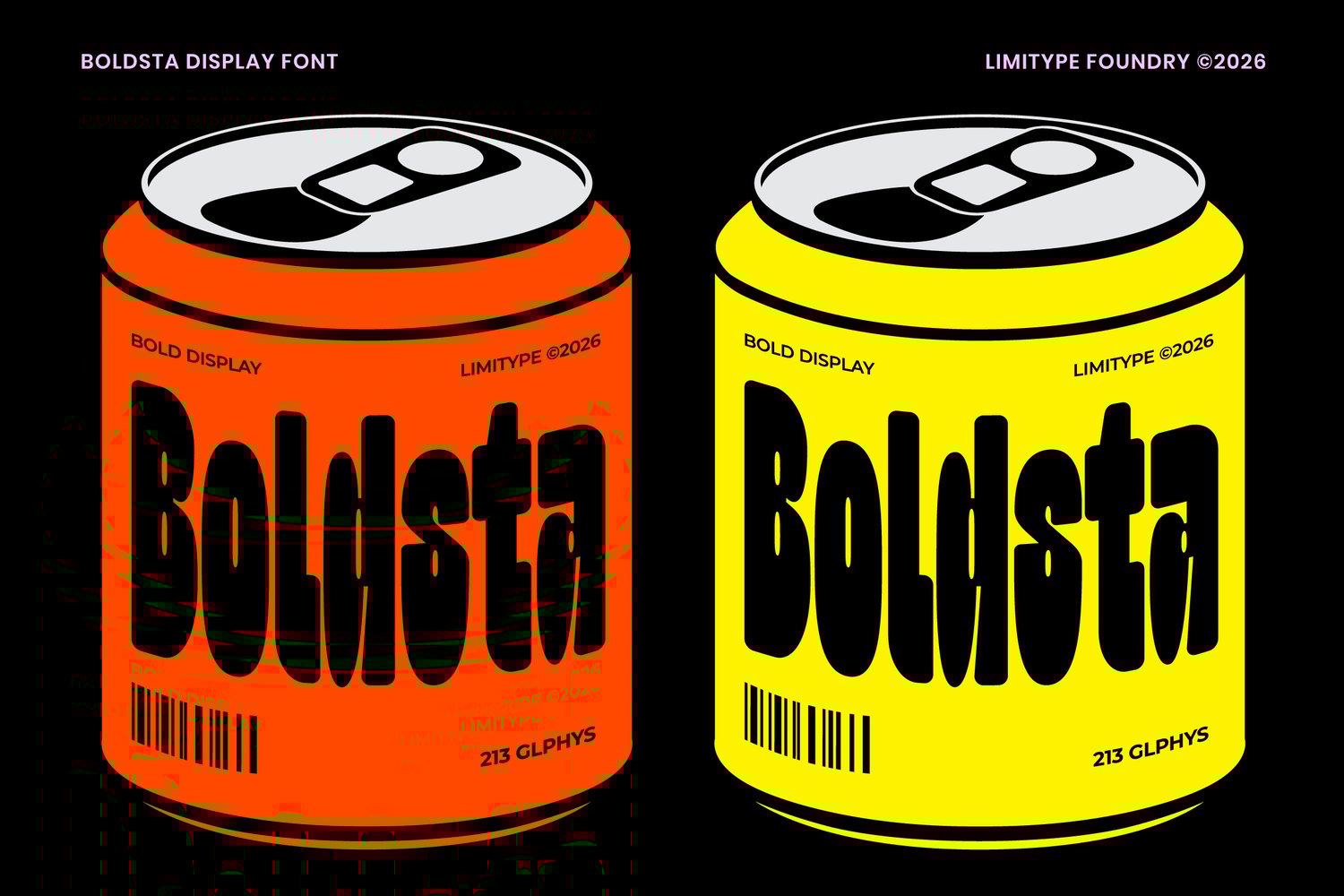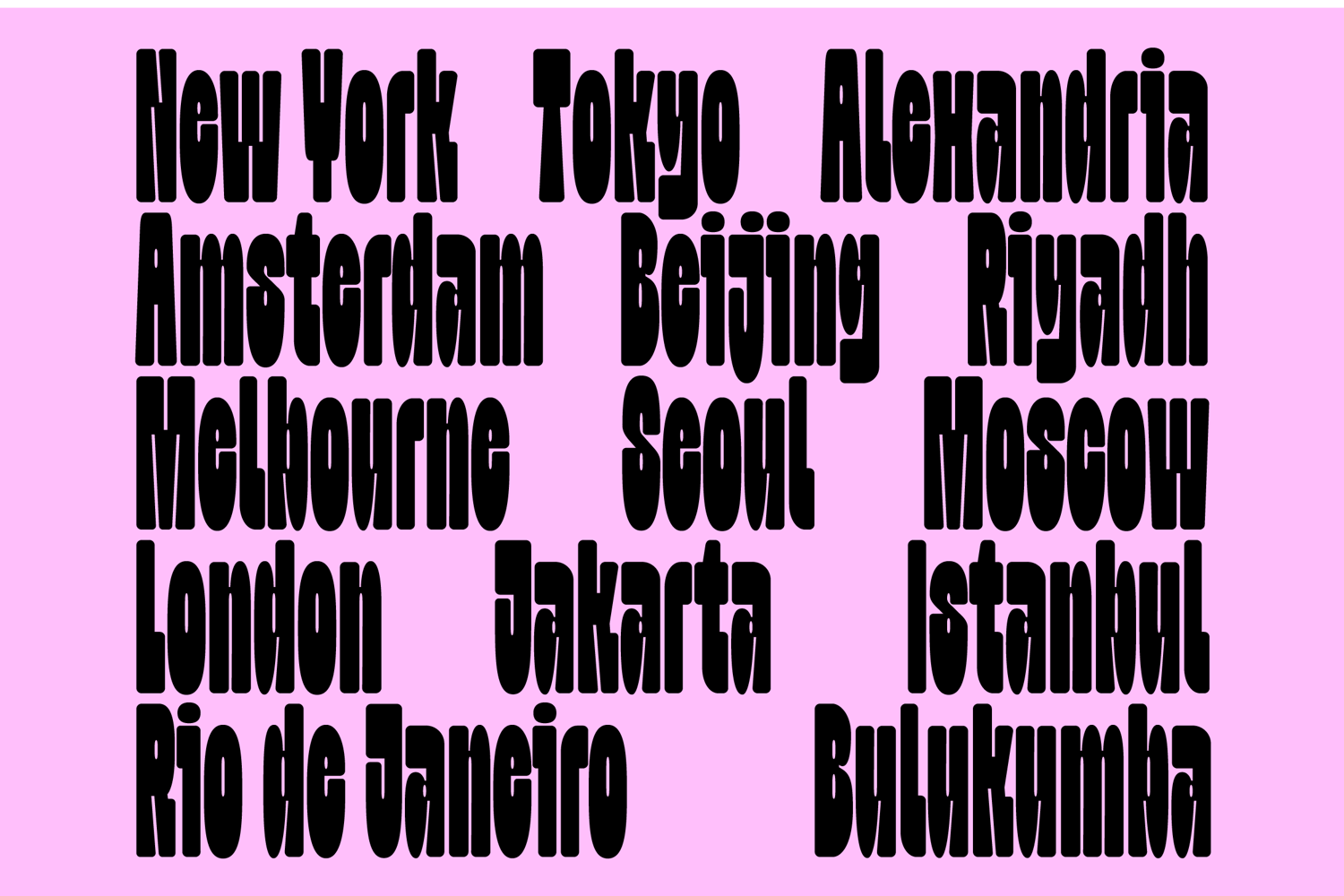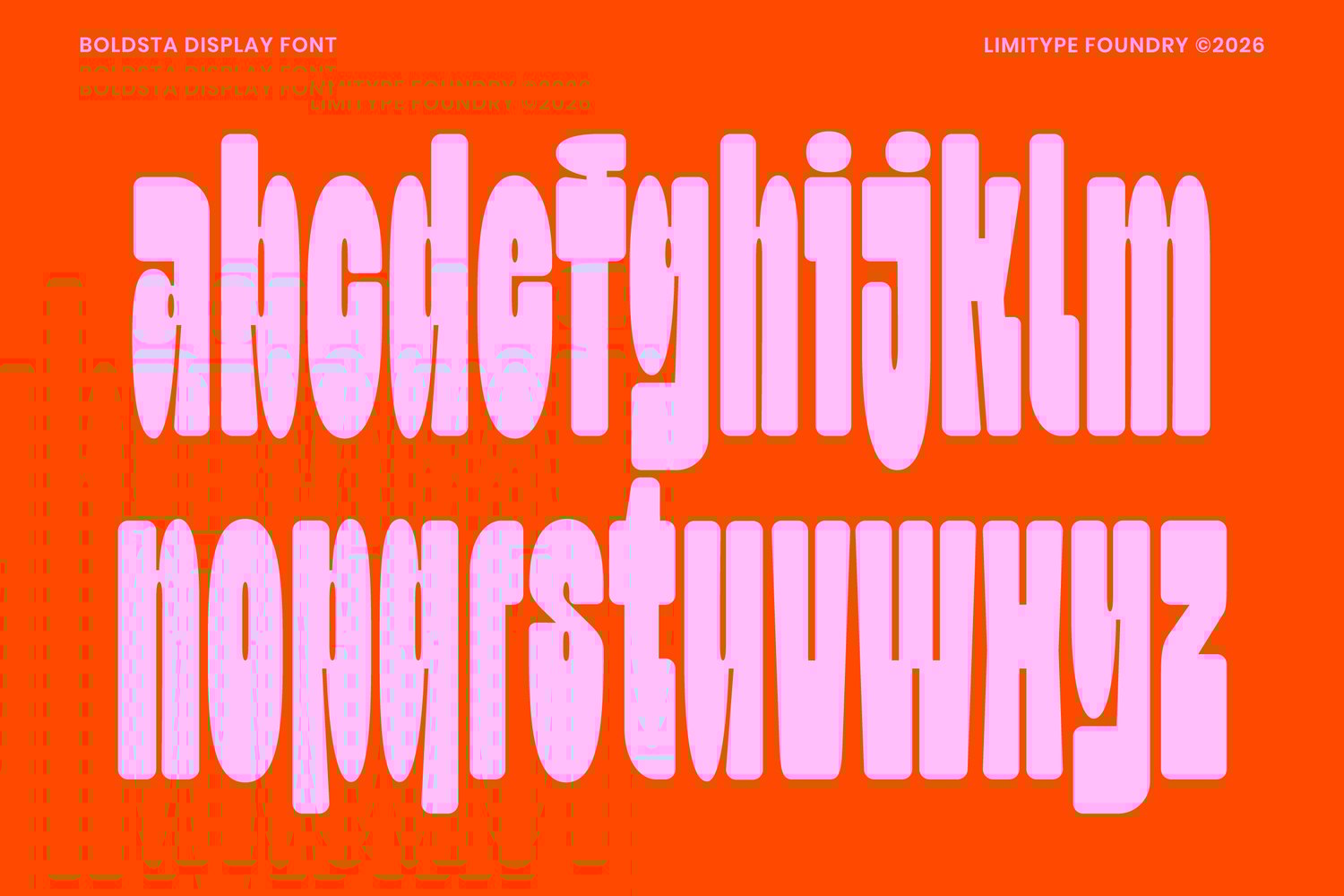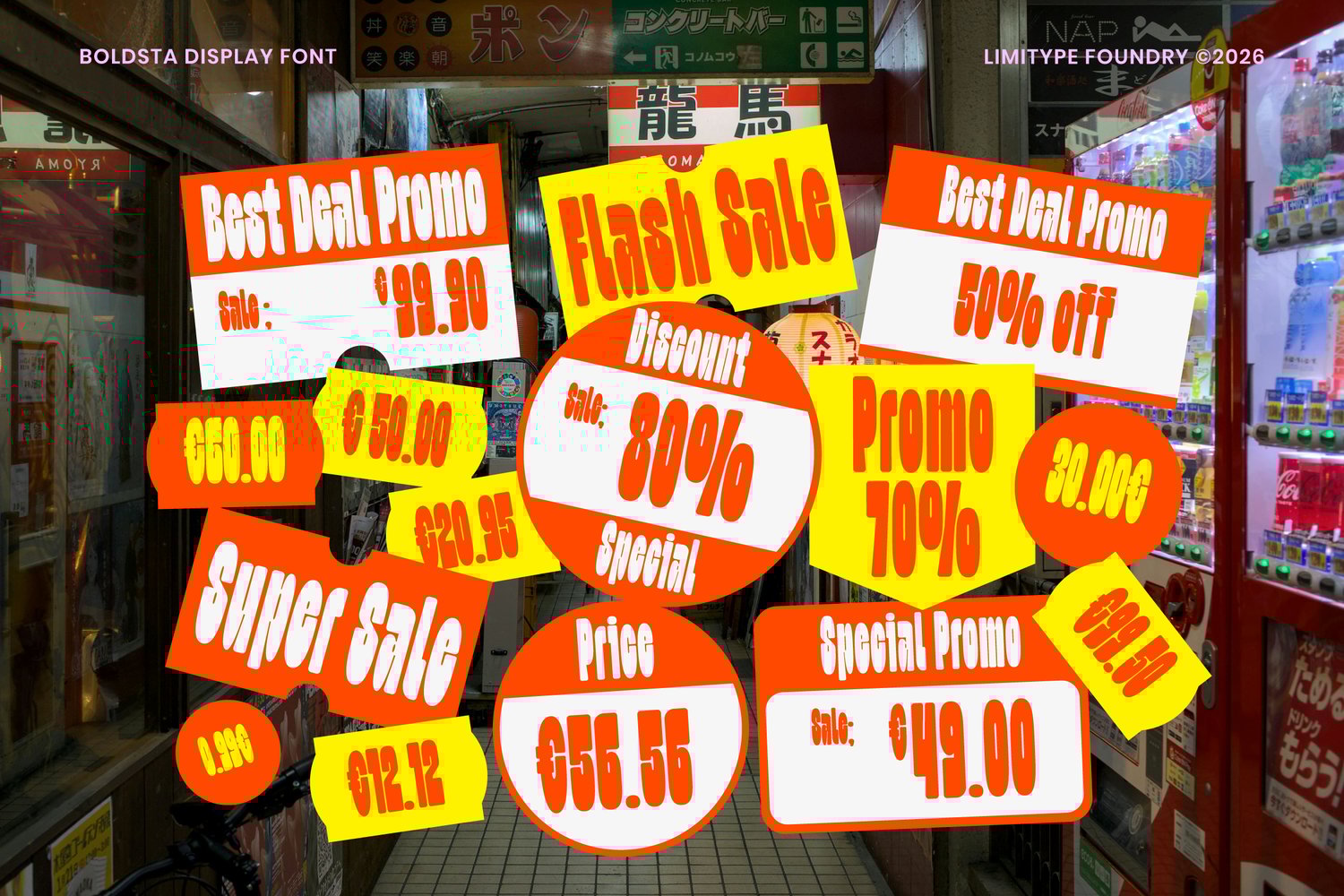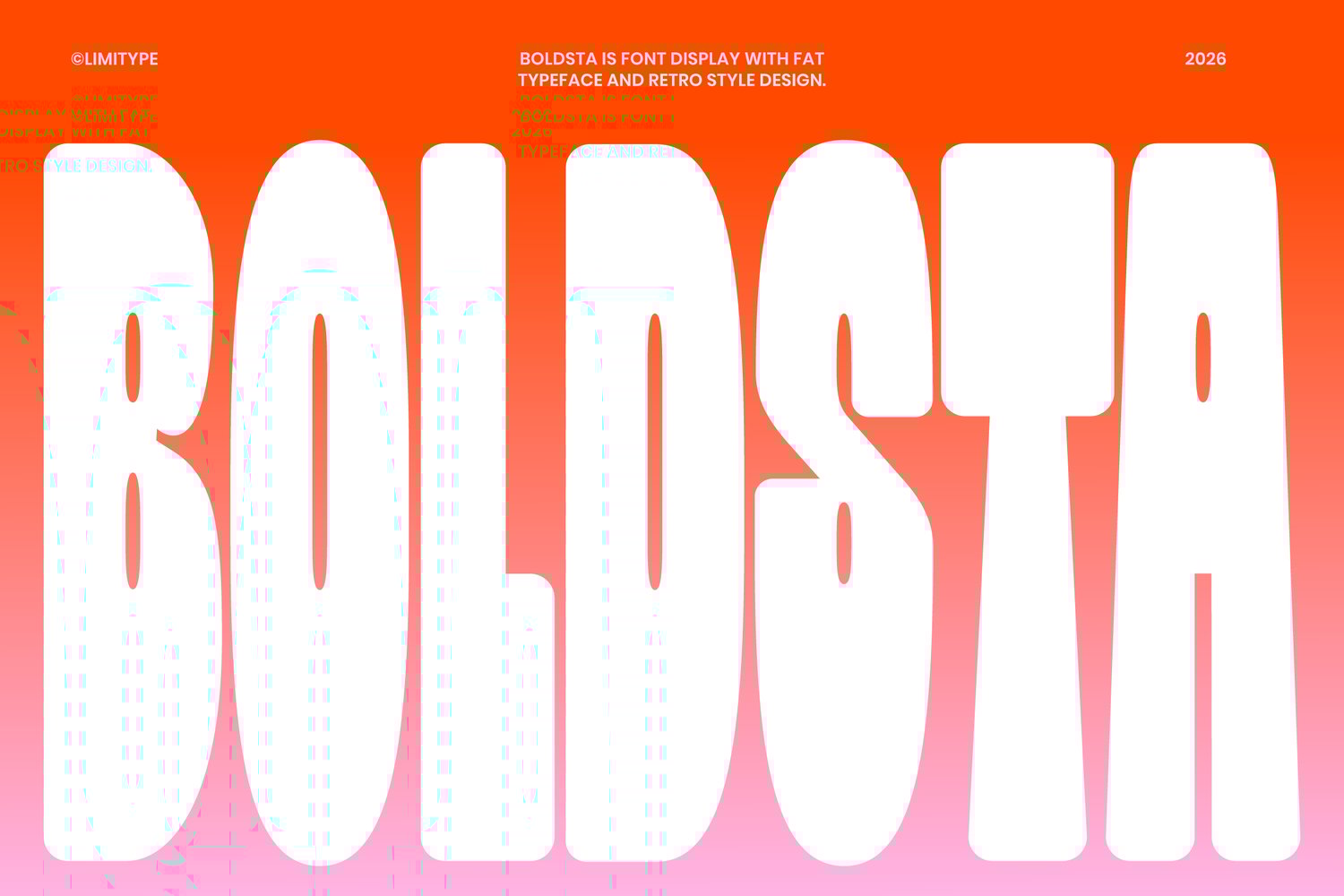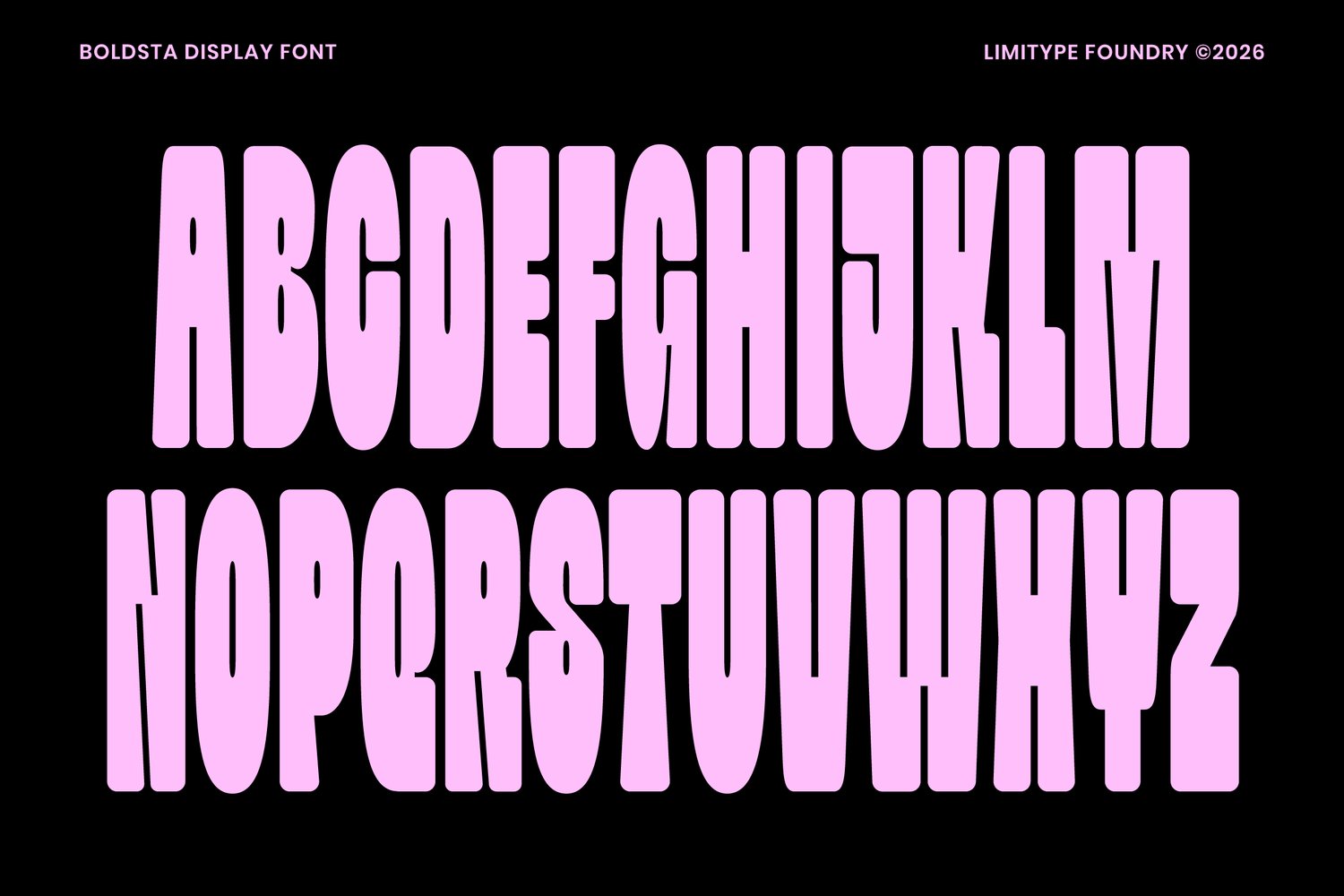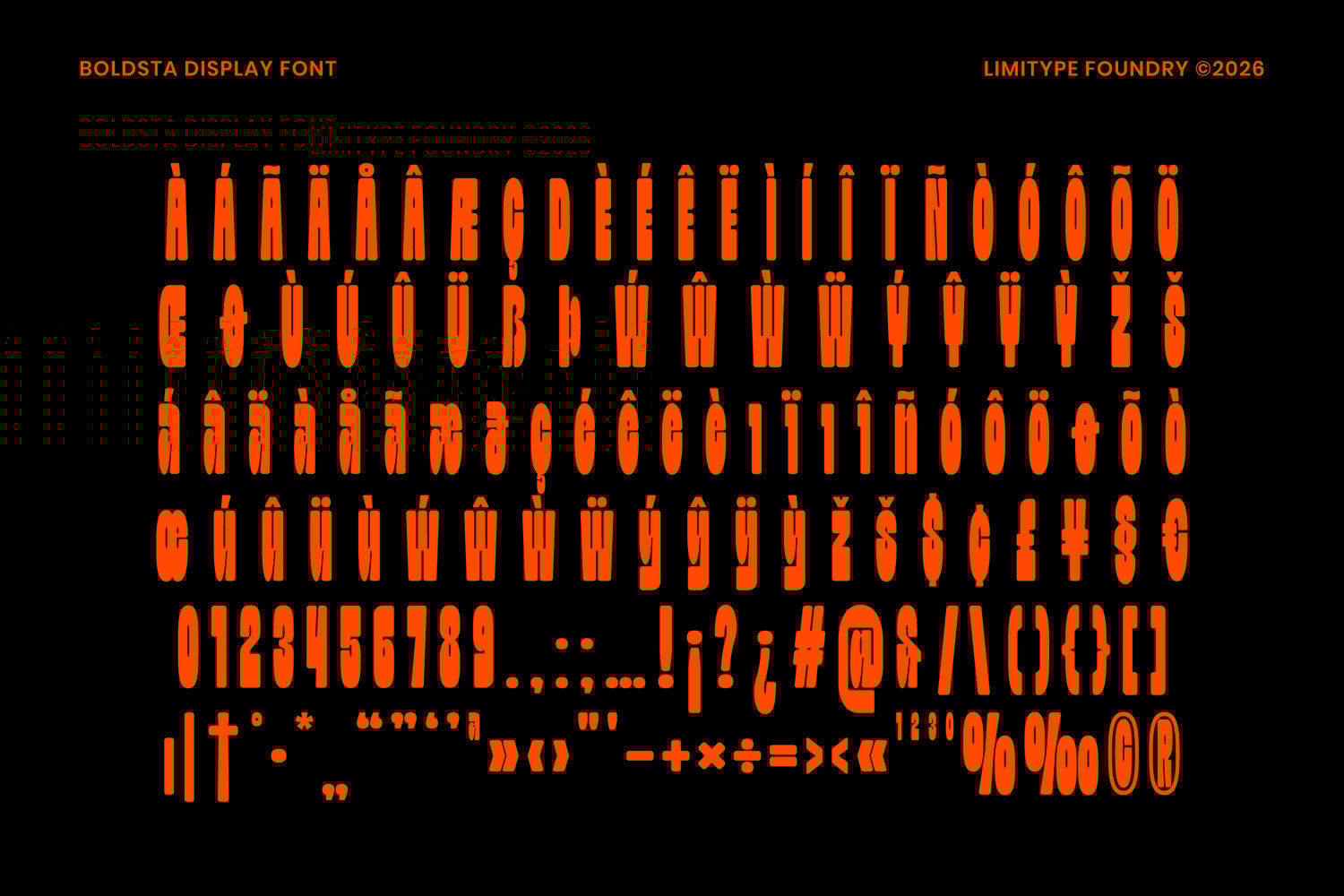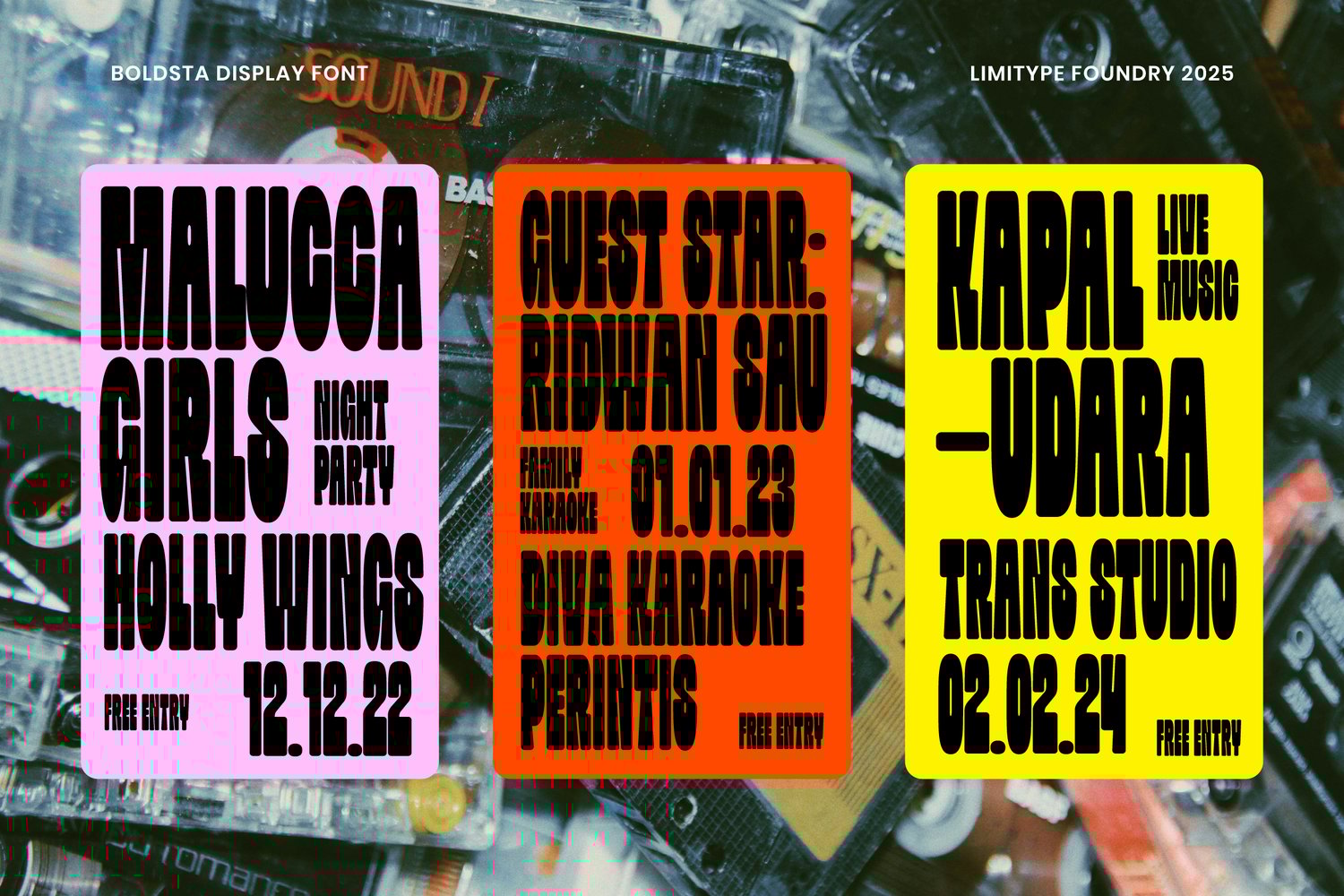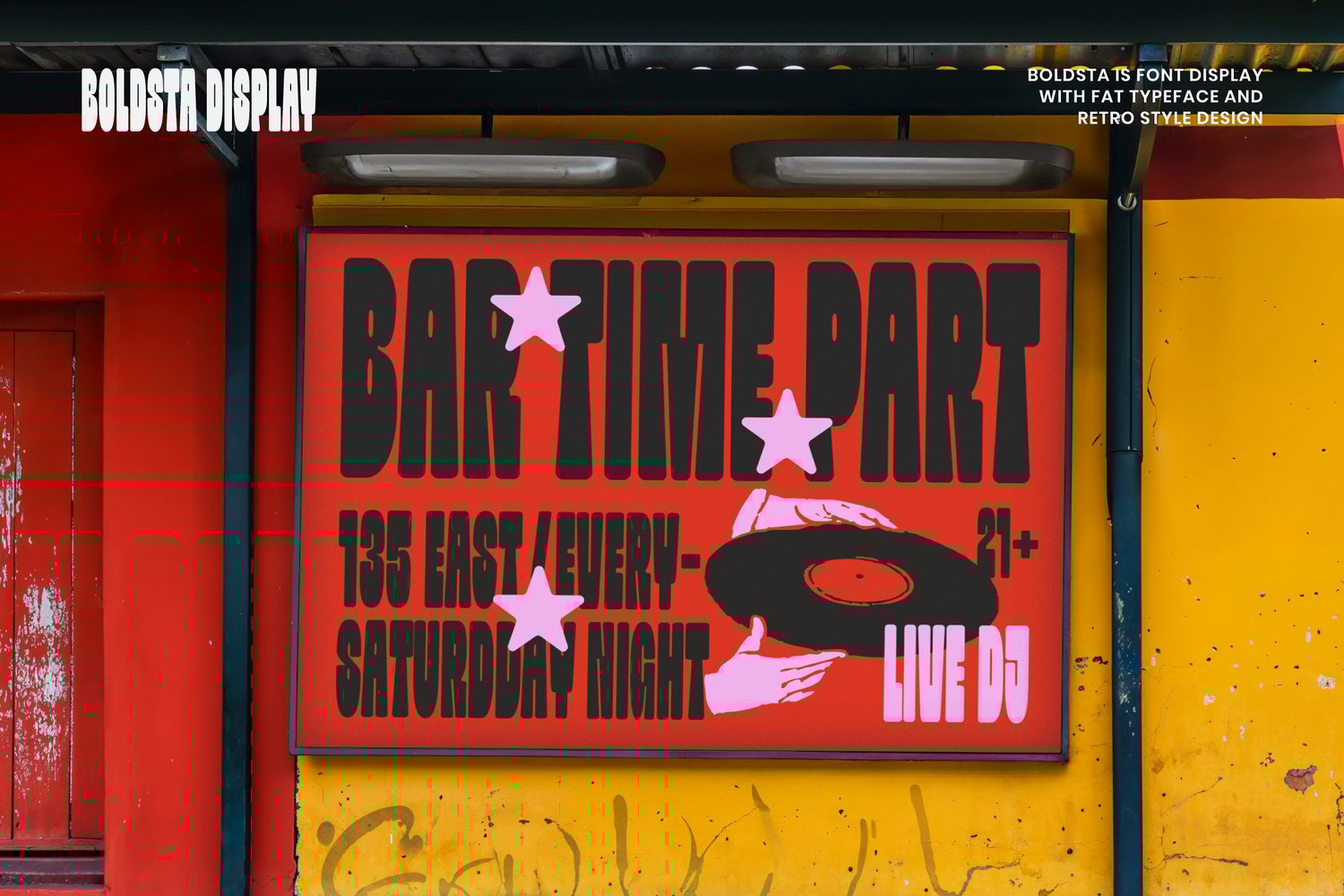
Boldsta - Condensed Font
Boldsta Condensed is a retro style display font designed with narrow proportions and a bold weight to deliver a strong, impactful display character. Inktrap details are precisely applied at stroke intersections to maintain consistent letterforms. The combination of retro with a modern structure results in visuals that are stable, clean, and high impact. This font is well suited for headlines, logotypes, posters, editorial design, packaging and a wide range of branding applications that require a bold, efficient, and professional visual identity.